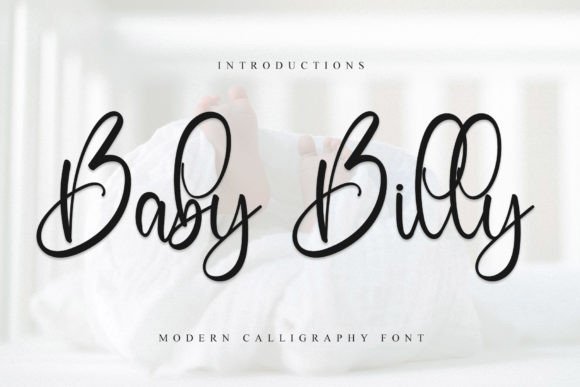
Journey into the extraordinary world of Baby Billy Font - a script font that exudes elegance and uniqueness, crafted by the renowned YanStudio, a name synonymous with typographic excellence. Baby Billy is not merely a font; it's a creative gateway unlocking a universe of design possibilities.
Designed with the utmost care and precision, Baby Billy seamlessly blends the charm of handwritten strokes with the sophistication of a modern font. Its characters dance gracefully on the page, lending an air of timeless beauty to any project they adorn. Whether you are crafting logos, branding materials, labels, watermarks, or any other design that yearns for a touch of handwritten elegance, Baby Billy stands ready to elevate your vision.
Experience the boundless versatility of Baby Billy, a font that effortlessly adapts to a myriad of design styles. Its delicate strokes lend a touch of whimsy to personal projects, while its unwavering structure provides the perfect foundation for professional endeavors. Unleash your creativity and let Baby Billy guide you through a journey of artistic exploration, transforming your ideas into captivating realities.
With Baby Billy, you hold the key to unlocking the potential of your creative endeavors. Let your imagination soar as you witness your designs come to life, infused with the enchanting aura of this extraordinary font. Baby Billy is more than just a collection of letters; it's an artistic tool that empowers you to leave an indelible mark on the world, one design at a time. Embrace the allure of Baby Billy and embark on a creative odyssey that knows no bounds.